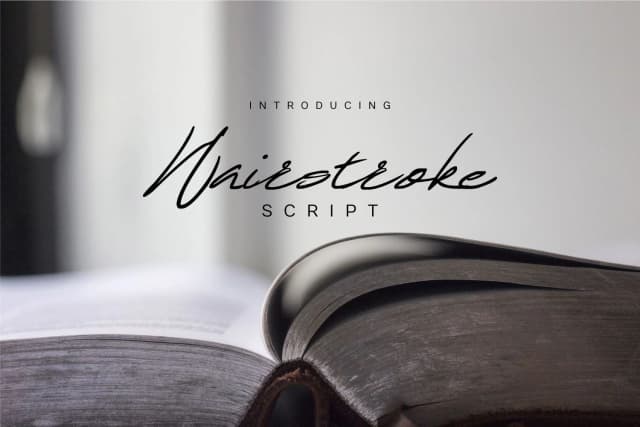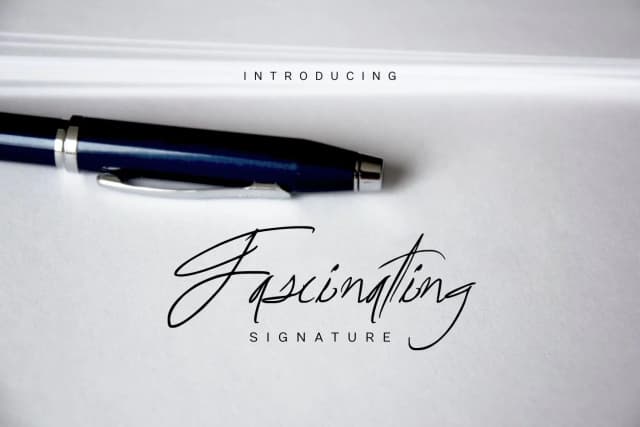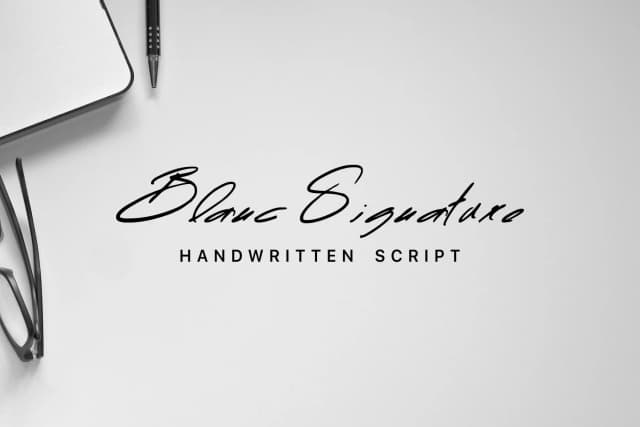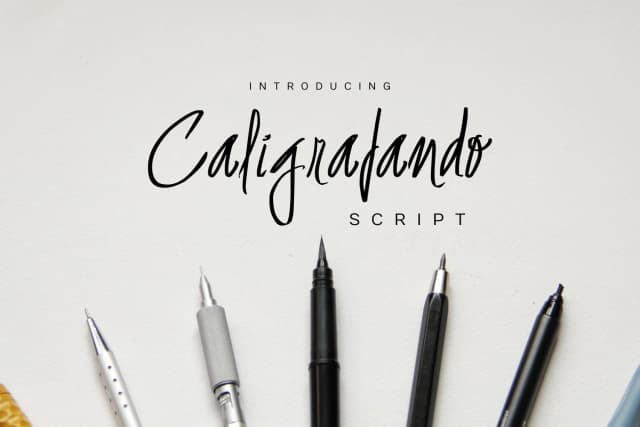
1 / 5About Casual Mix 2 Font
Casual Mix 2 by Marcelo Inez is a hand-drawn script font that balances playful charm with exceptional readability. Unlike many script typefaces that prioritize elaborate flourishes over function, this typeface maintains clarity even when used at smaller sizes, making it equally effective in headline-heavy compositions or detailed design applications. The uppercase-focused character set and fluid letterforms work particularly well for wedding invitation suites, Instagram story graphics, product label design, and boutique café menu layouts. The approachable nature of the font makes it accessible to both professional designers and creative enthusiasts exploring hand-lettered typography for their projects.
The font's contemporary sensibility gives it versatility across modern design aesthetics without feeling dated or overly stylized. Whether you're crafting event signage, designing podcast cover art, or building cohesive branding for a lifestyle product line, Casual Mix 2 brings authentic personality without sacrificing legibility or professional polish. Its script-based structure with consistent letterforms ensures designs remain professional-looking even when scaled or reproduced across different media formats and applications. The balance between casual charm and refined execution makes this typeface a reliable choice for projects that demand character with competence.
Casual Mix 2 Font is a script font that shines as a display or heading face. Pair it with a clean sans-serif or serif font for body text — the contrast creates a clear hierarchy while the two styles stay balanced and easy to read.
Casual Mix 2 Font
by Marcelo Inez